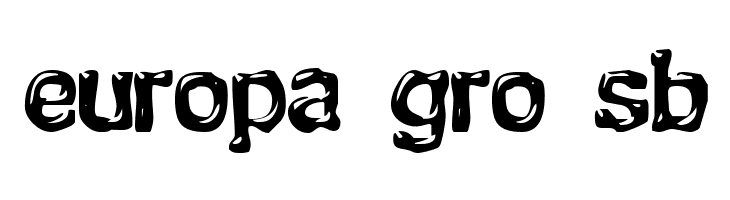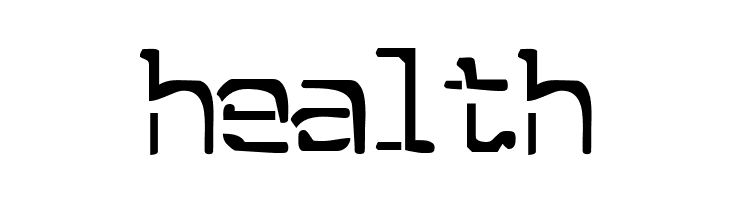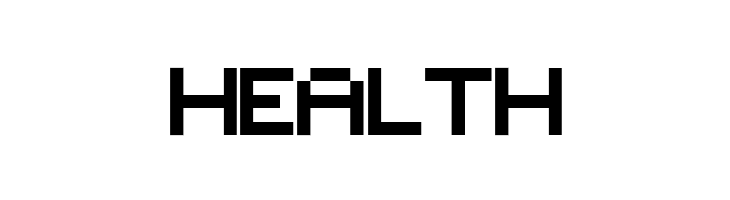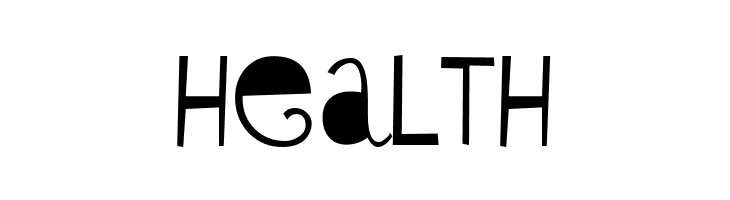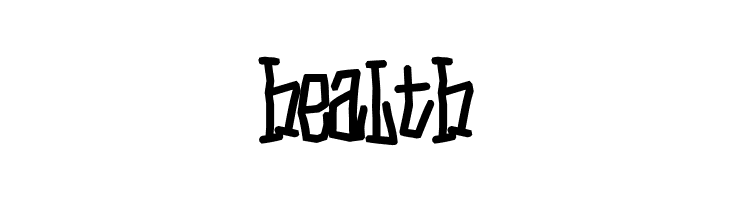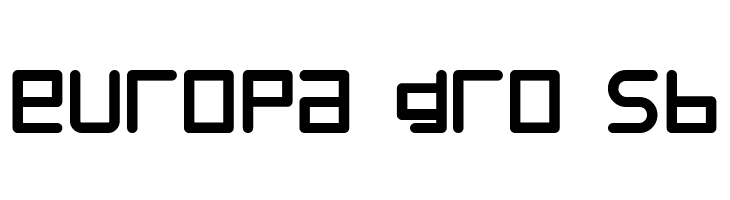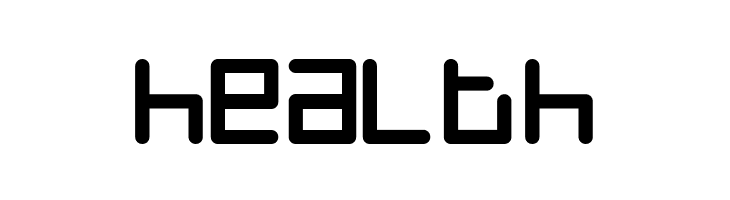
A bold, dynamic font with fluid, organic shapes resembling liquid or dripping paint.
A fragmented, futuristic font with angular cuts and geometric shapes.
A bold, modern, and geometric monospaced font with uniform stroke width.
A bold, edgy, hand-drawn decorative font with a graffiti-like style.